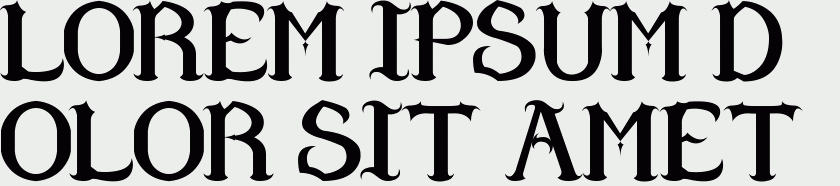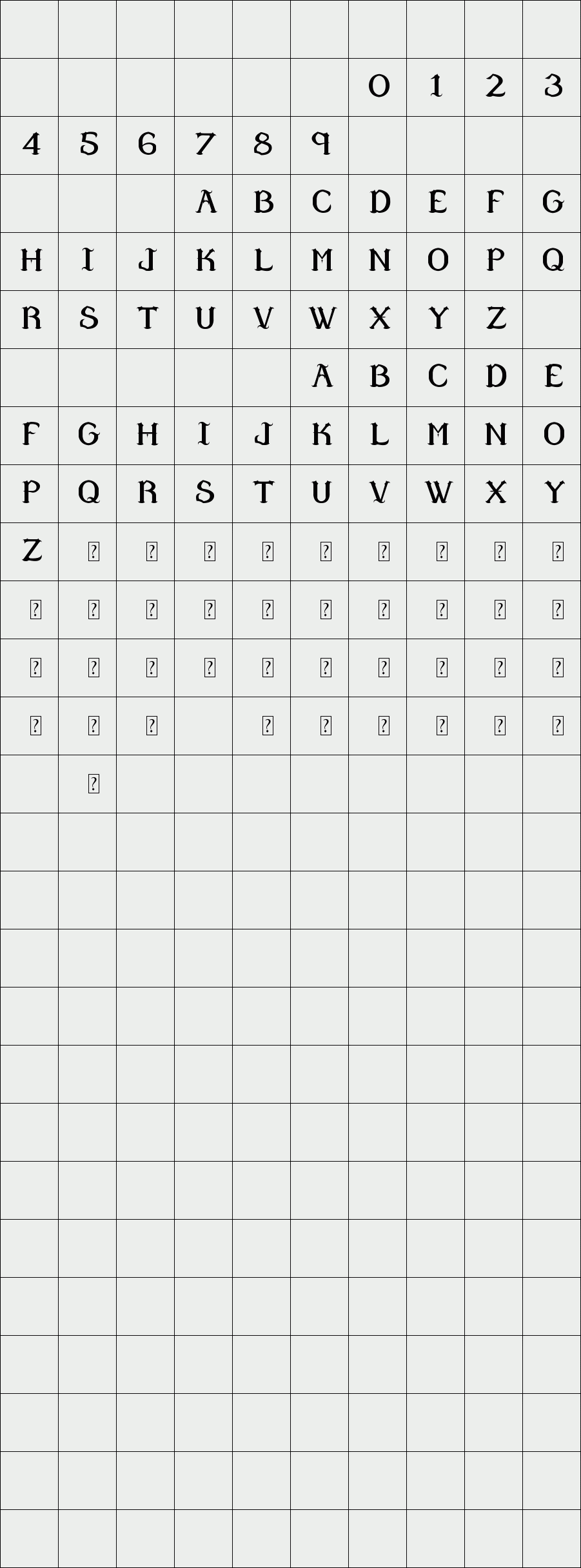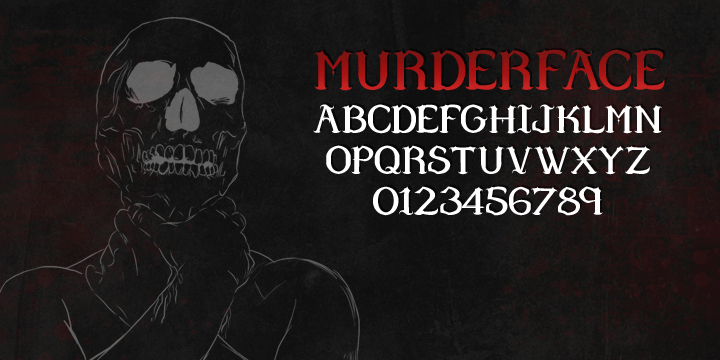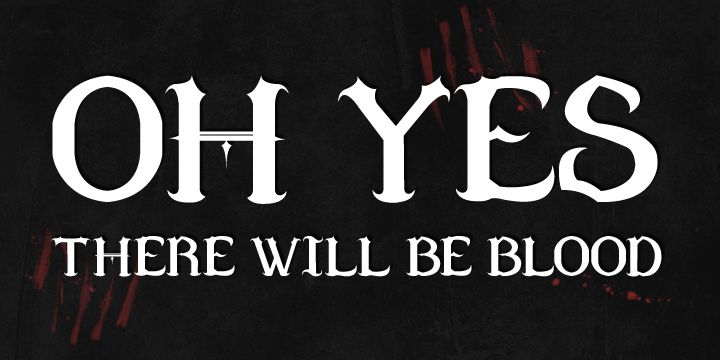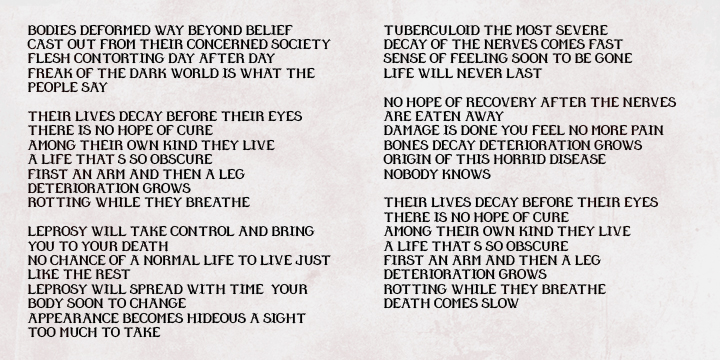
MurderFace
Inspired by roman typography and extreme metal band logos. This is a vicious looking font that works great in large and small pt. sizes.
Ideal for rock bands, alternative literature, films, video games and apparel.